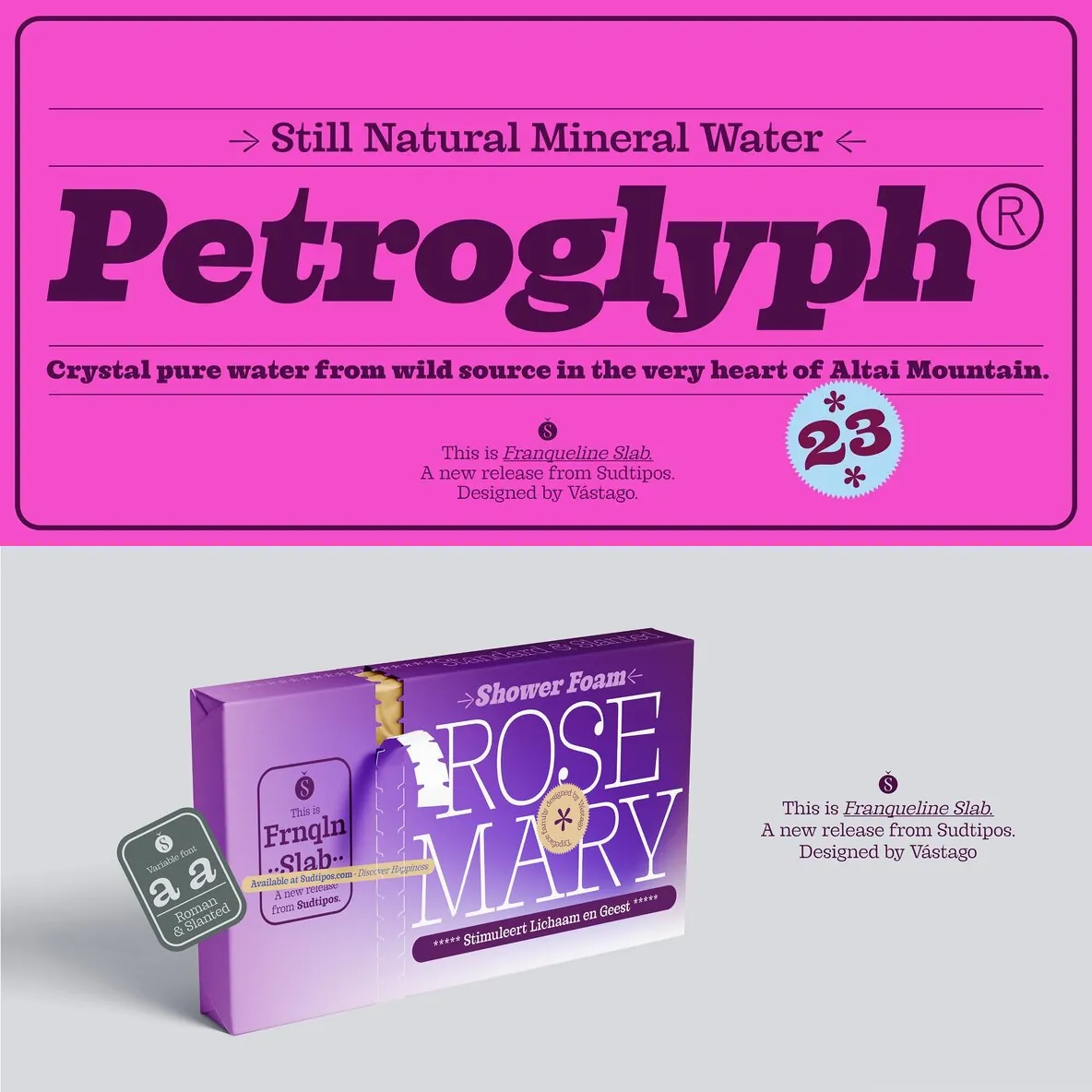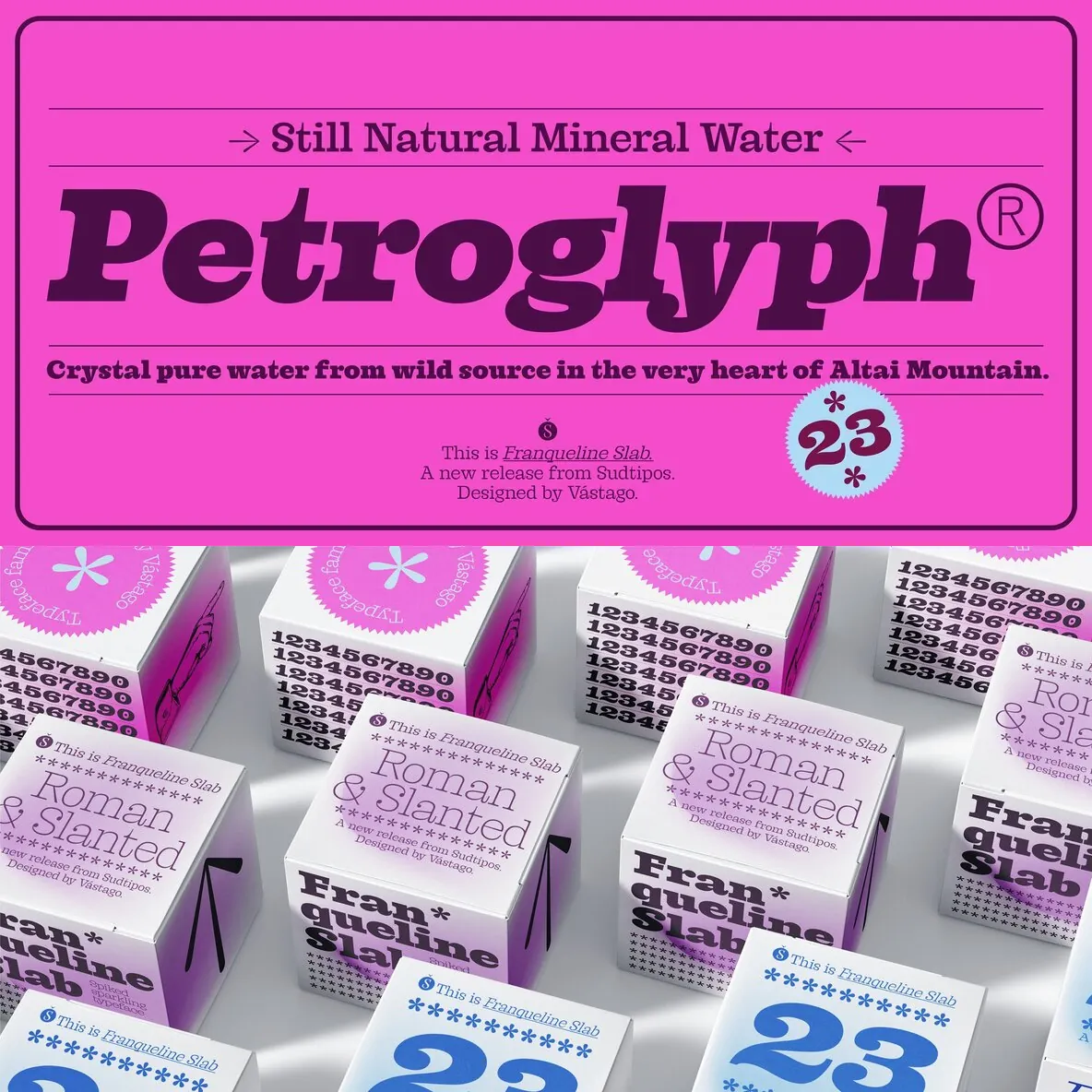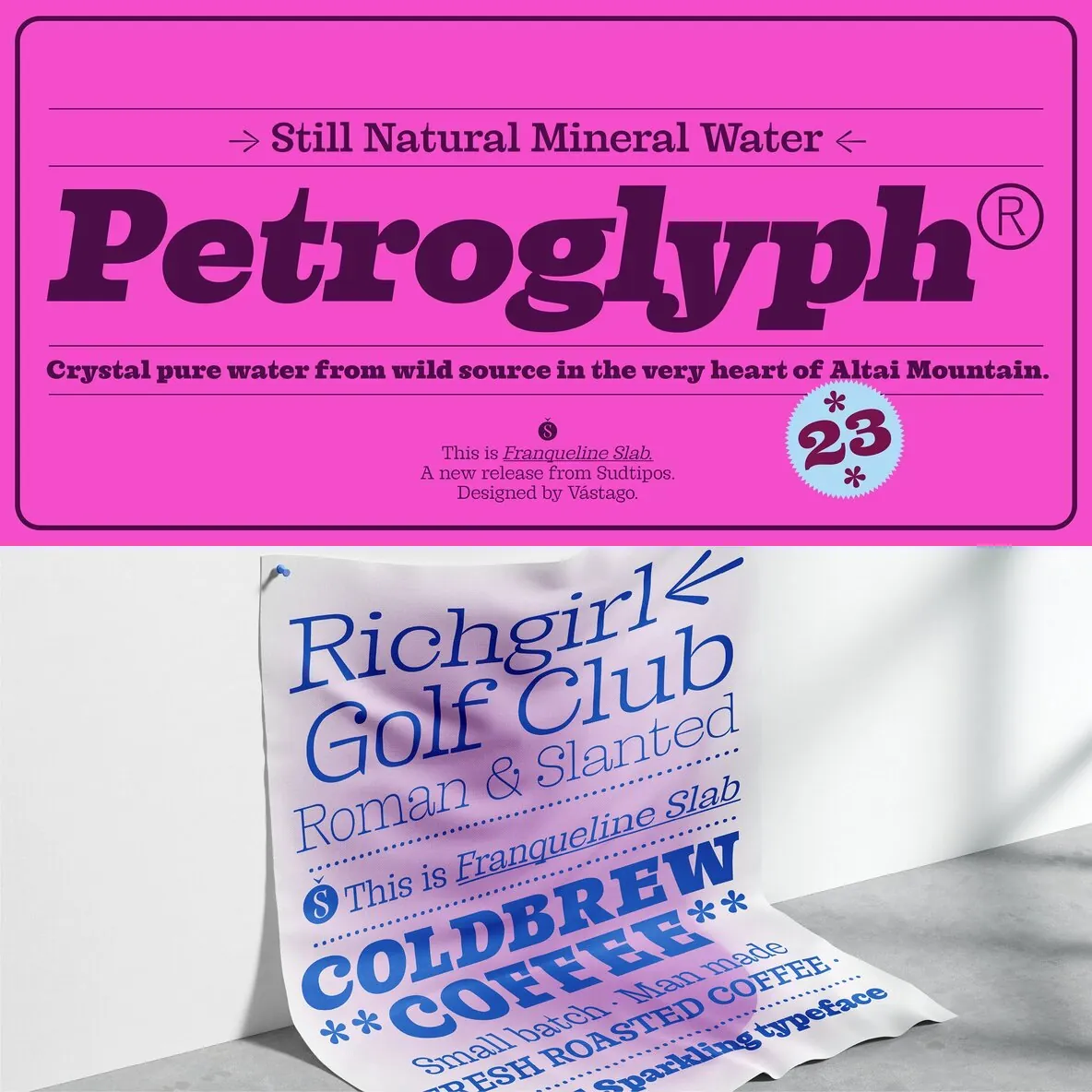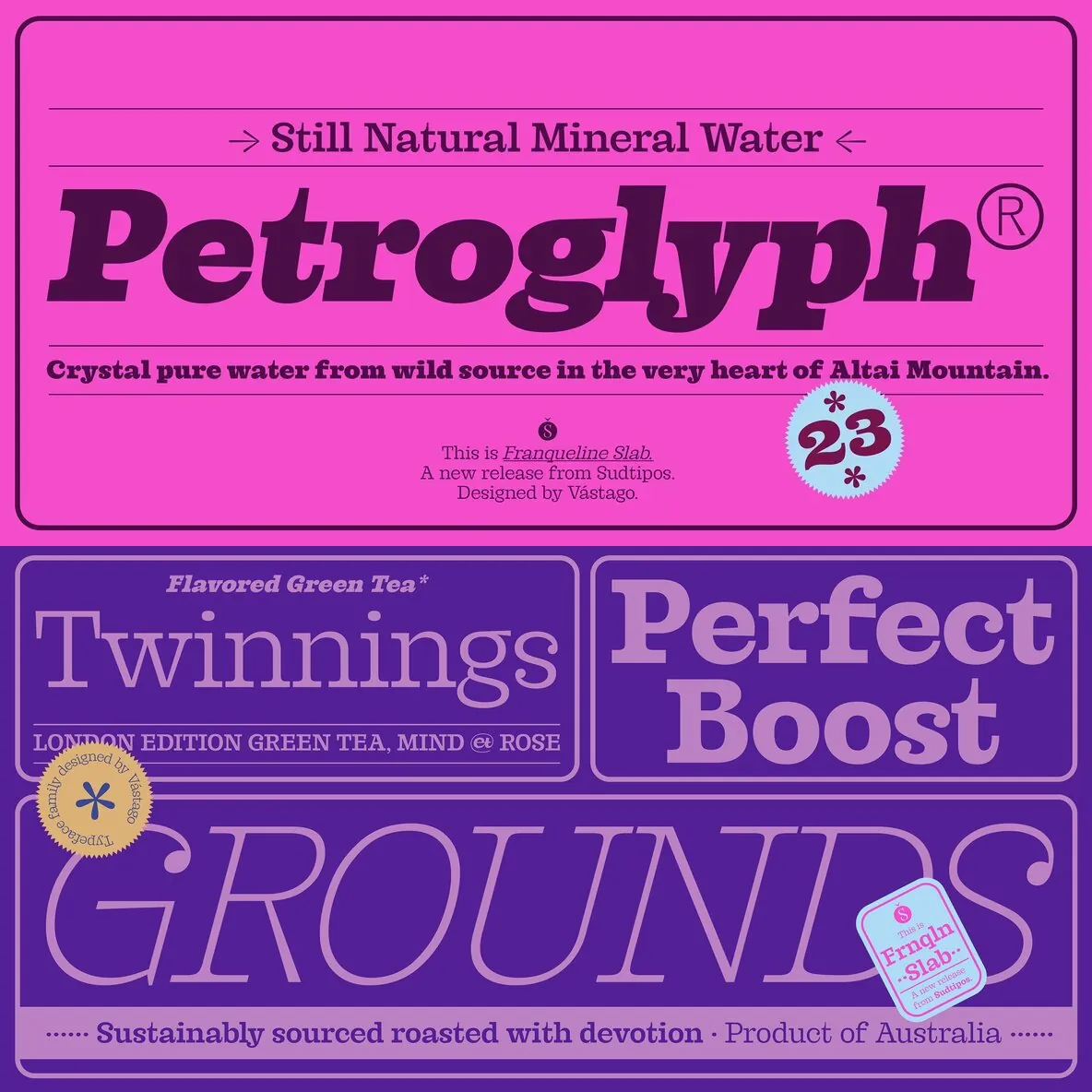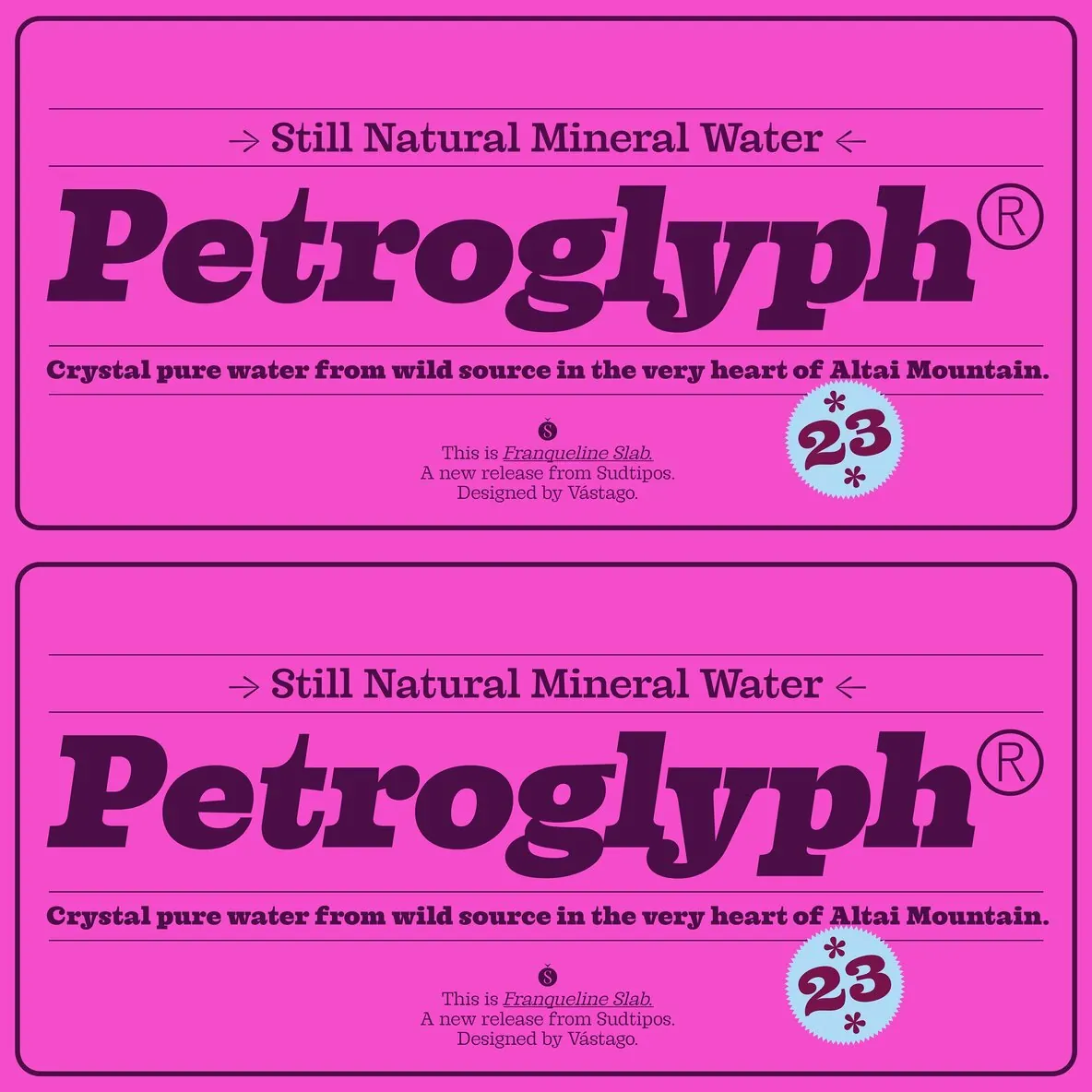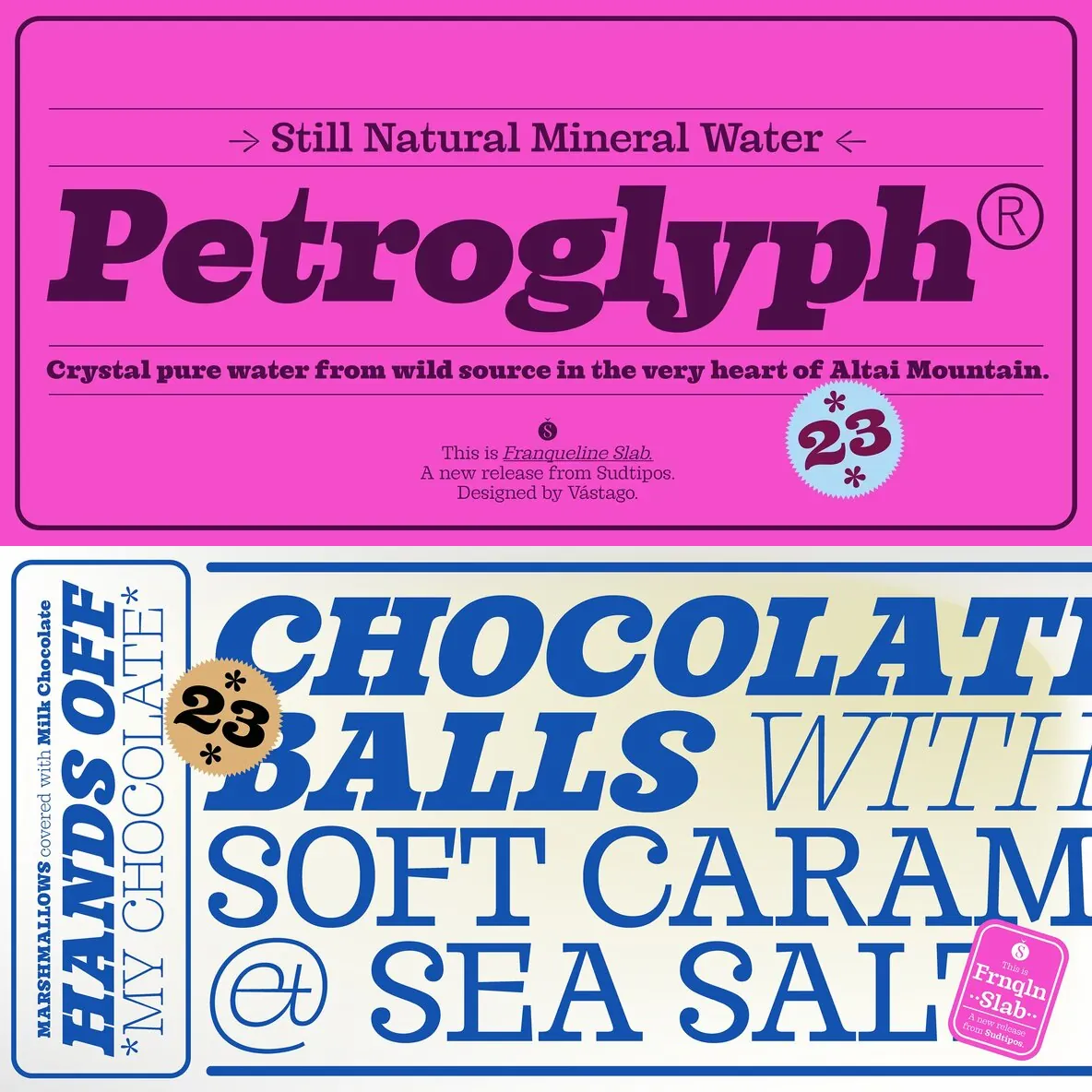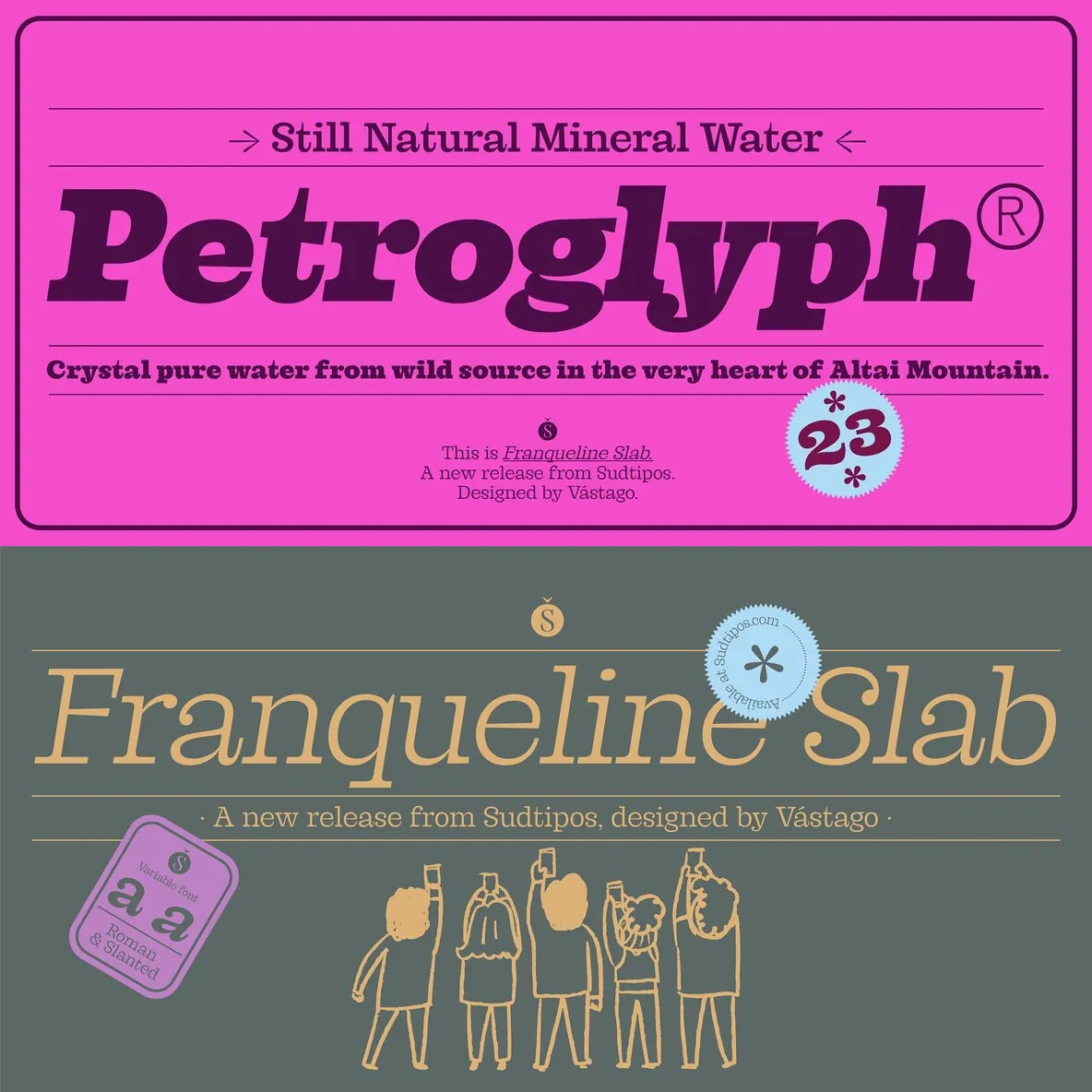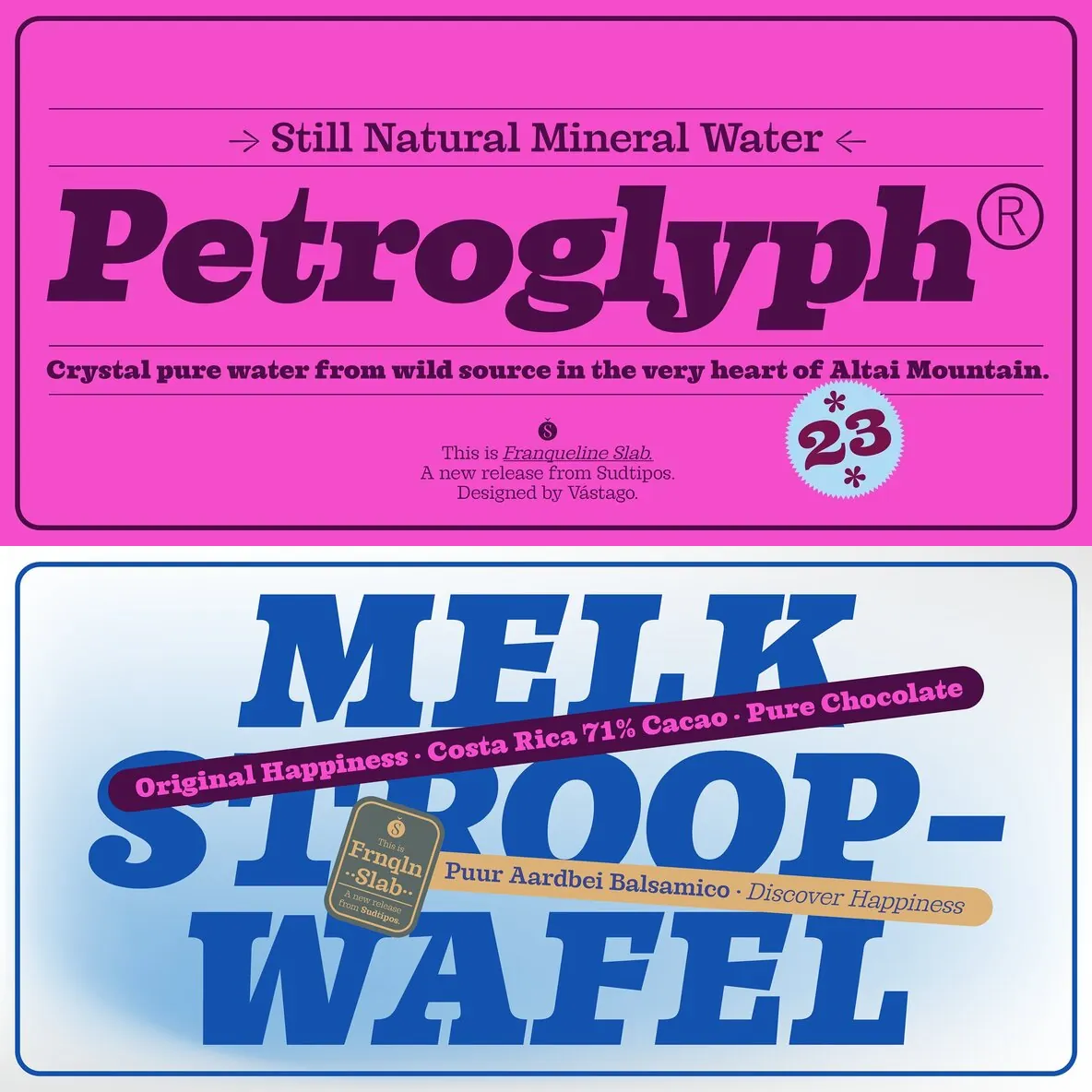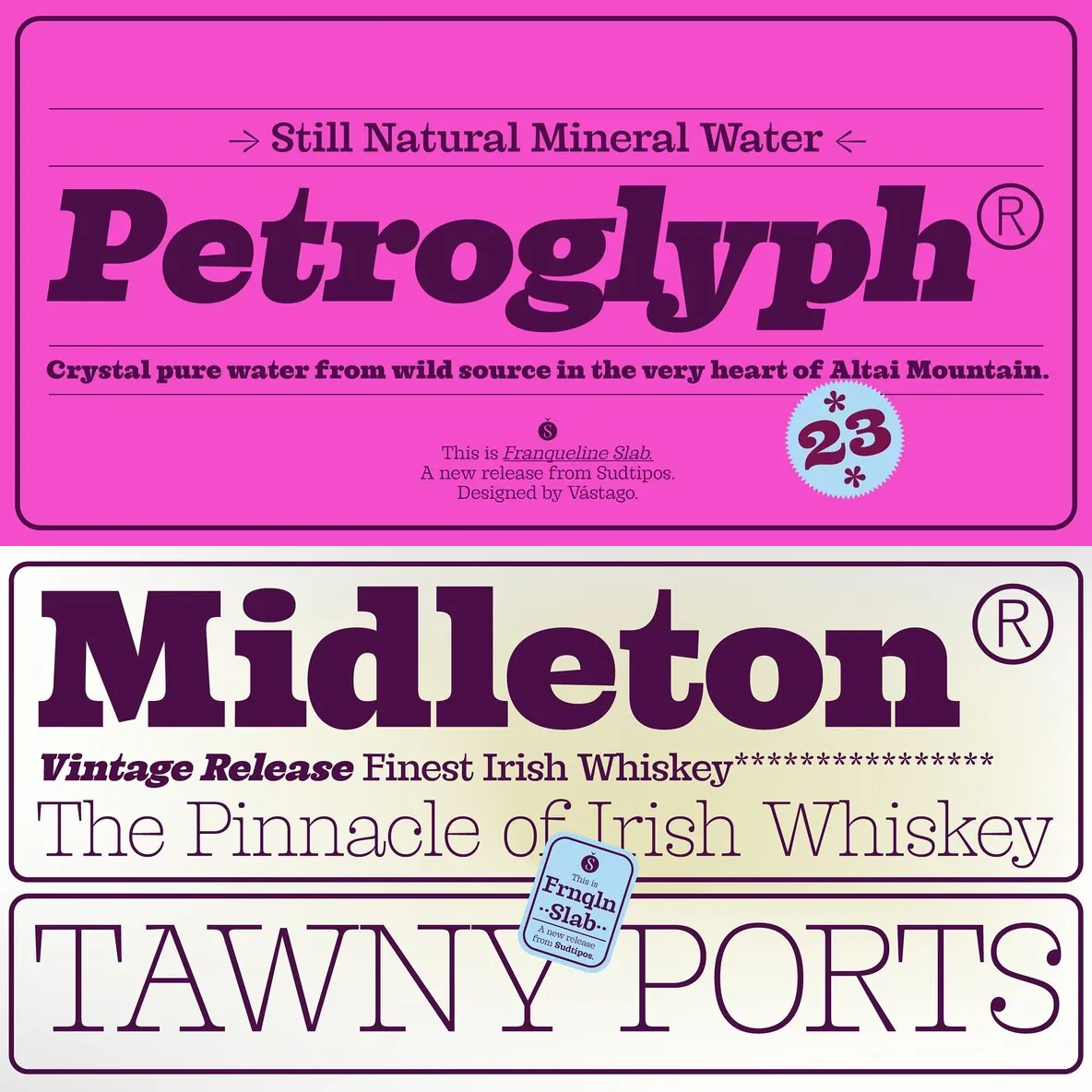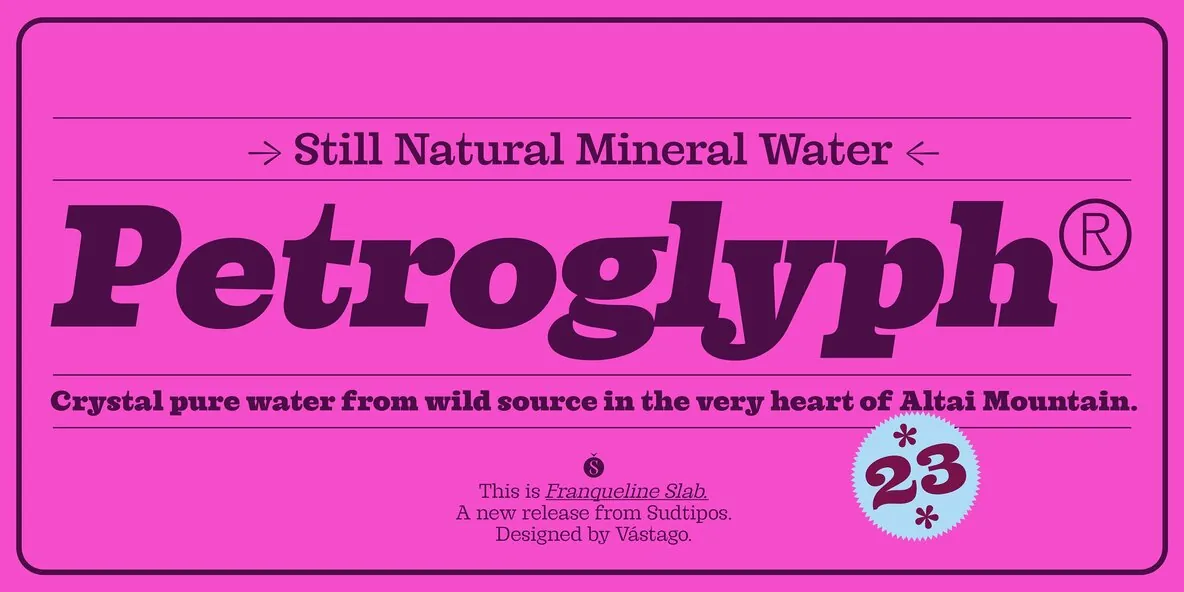
Franqueline Slab — Egyptian Roots, Fresh Bite
Introducing Franqueline Slab, a captivating typeface family passionately designed by Estudio Vástago and distributed by Sudtipos. This versatile font spans a wide range of styles on the weight axis, from delicately refined to boldly eye-catching. Its voice nods to the timeless Egyptian fonts of the late 19th century, with a tone that feels familiar yet current.
Franqueline Slab stands out for its expressive character and uniquely drawn shapes. Delicate strokes meet sophisticated endings, giving the family a confident rhythm on the page. Each letter has been carefully built to balance a contemporary edge with traditional charm—an approach that speaks to younger audiences and to typography lovers who value historical craft.
Use Franqueline Slab for headlines that carry youthful energy and playfulness without losing classic elegance. It also fits comfortably in editorial design, logos, and advertising, where clarity and personality need to work together. Bring distinction and originality to your layouts with a type family designed to leave a lasting impression.